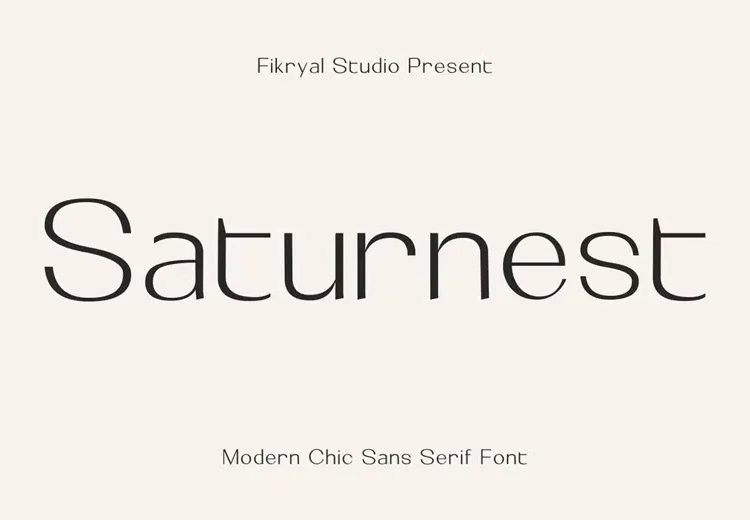
Saturnest Font
Introducing Saturnest, a modern chic sans serif font that effortlessly elevates any design project. Its clean lines and contemporary style make it an ideal choice for a diverse range of applications, whether you’re working on product packaging, branding materials, or website design. Saturnest combines accuracy with elegance, making it a standout option for businesses aiming to craft a vibrant and modern brand image.
What sets Saturnest apart is its simplicity and lack of unnecessary embellishments, allowing it to shine in various contexts. This makes it perfect for logos, business cards, presentations, and other corporate materials, providing a polished and sophisticated appearance that resonates with professionalism. The font’s versatility ensures that it aligns seamlessly with your brand’s vision while adding a touch of modern flair.
With Saturnest, your designs will exude confidence and clarity, making it easier to communicate your brand’s message effectively. The font’s balanced structure offers excellent readability, ensuring that your audience engages with your content without distraction. Its modern aesthetic is not only appealing but also adaptable to different design styles, from minimalist to contemporary.